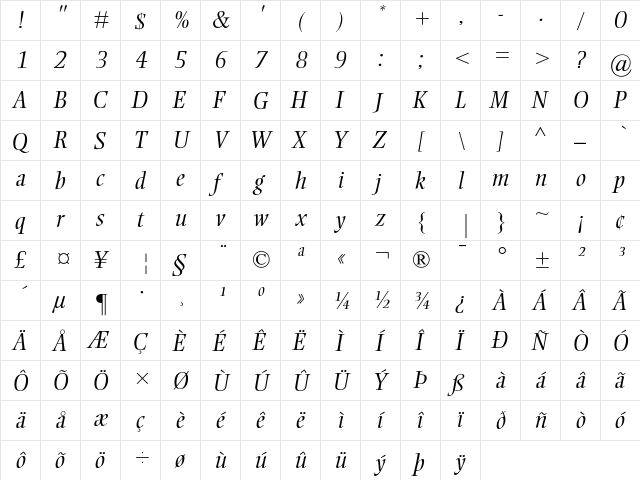
Ellington MT Light Italic
Design Context for Ellington MT Typeface
Ellington MT takes a measured approach to typography — its balanced proportions and neutral character make it a reliable workhorse for both digital and print work. The slanted form adds forward momentum and visual energy. Its slender proportions lend an understated elegance to any composition.
Pro Tip: Use Ellington MT for emphasis, pull quotes, and subheadings where its slanted energy can add rhythm to the layout.